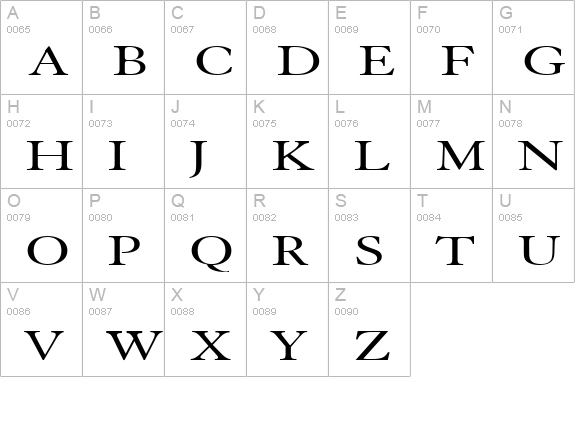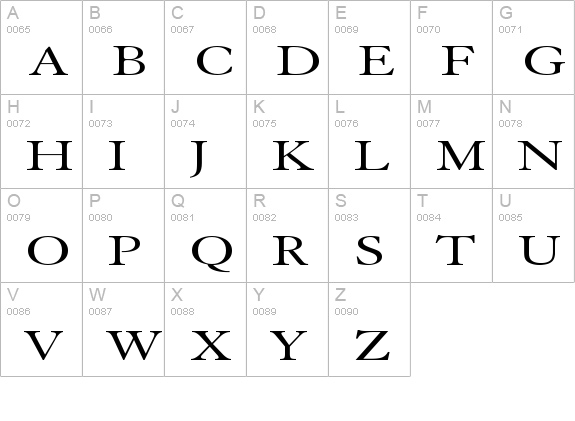
Elephant Extended Normal Font Details
Elephant Extended Normal is the standard, neutral, extended-width variant in the Elephant typeface family \xE2\x80\x94 well suited to general body text, paragraphs, and standard typographic work.
Elephant Extended Normal font is a versatile and modern typeface that exudes strength and elegance. With its elongated letterforms and clean lines, this font is perfect for adding a touch of sophistication to any design project. Whether you're creating a logo, poster, or website, Elephant Extended Normal font will make your text stand out with its unique and eye-catching appearance. The best part? Elephant Extended Normal font is available for free download at FontsMarket.com. So you can easily access this stylish font and use it in your projects without any cost. Don't miss out on the opportunity to enhance your designs with the sleek and professional look of Elephant Extended Normal font. Download it today and elevate your typography game to the next level.